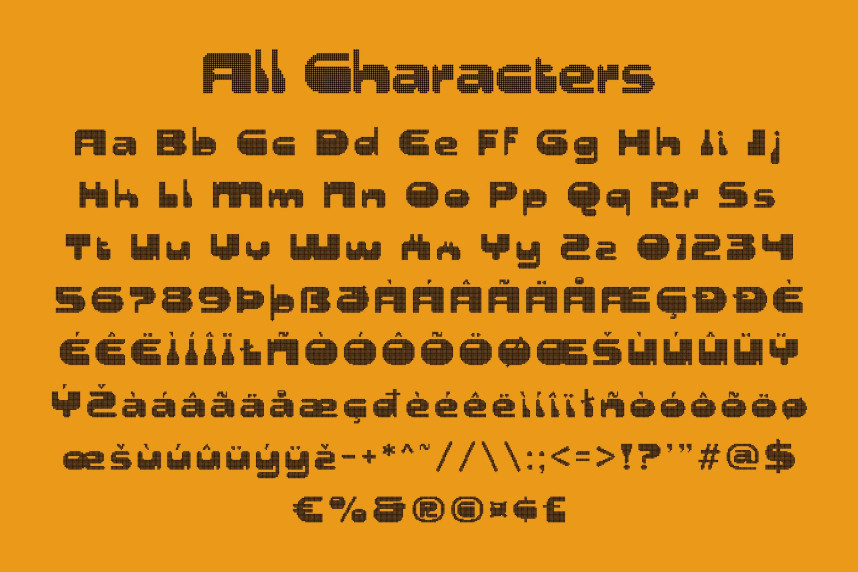
CS Rilke Disco Font
CS Rilke Disco Font – Futuristic Dot Display Font with Digital Energy Futuristic Style with Disco Sparkle. This font reimagines the bold futuristic display font in a vibrant dotted style inspired by the dazzling lights of the disco era. Built from small circular dots, each letter reflects the glow of digital displays and dance-floor lighting. This dotted structure amplifies the energetic personality of the typeface while preserving its strong futuristic identity.